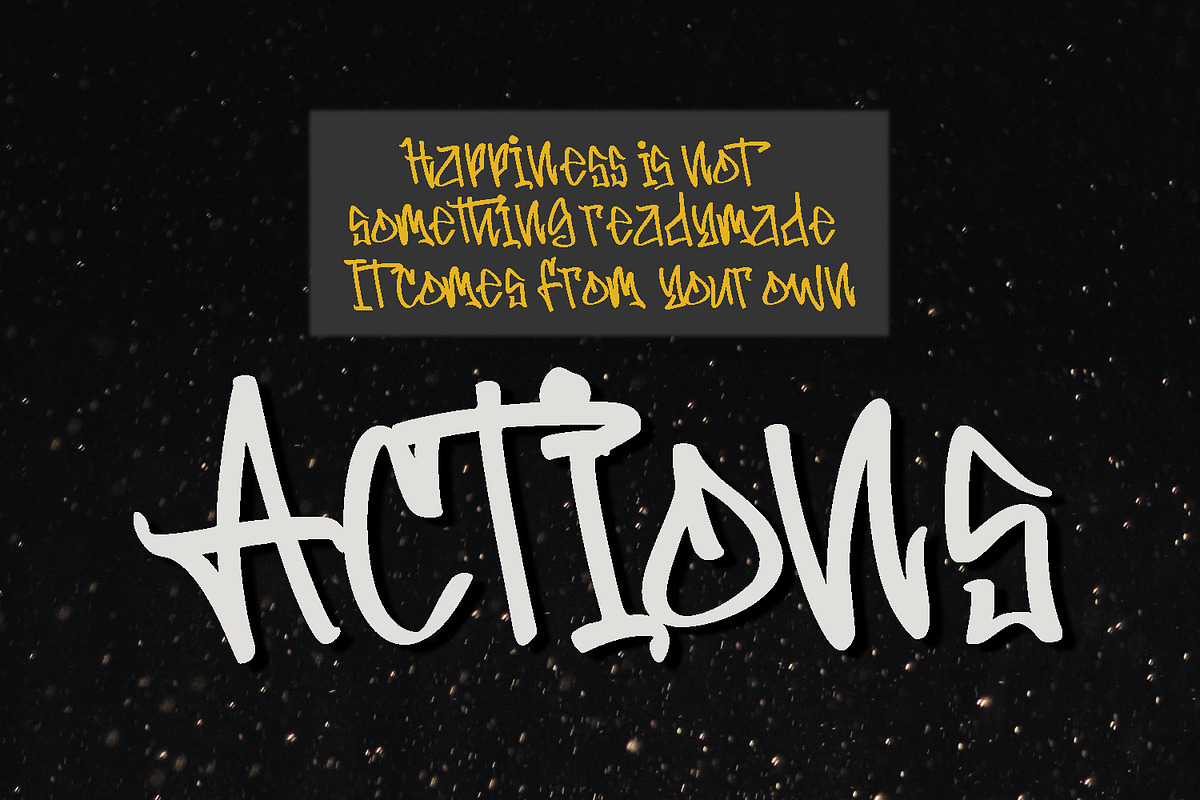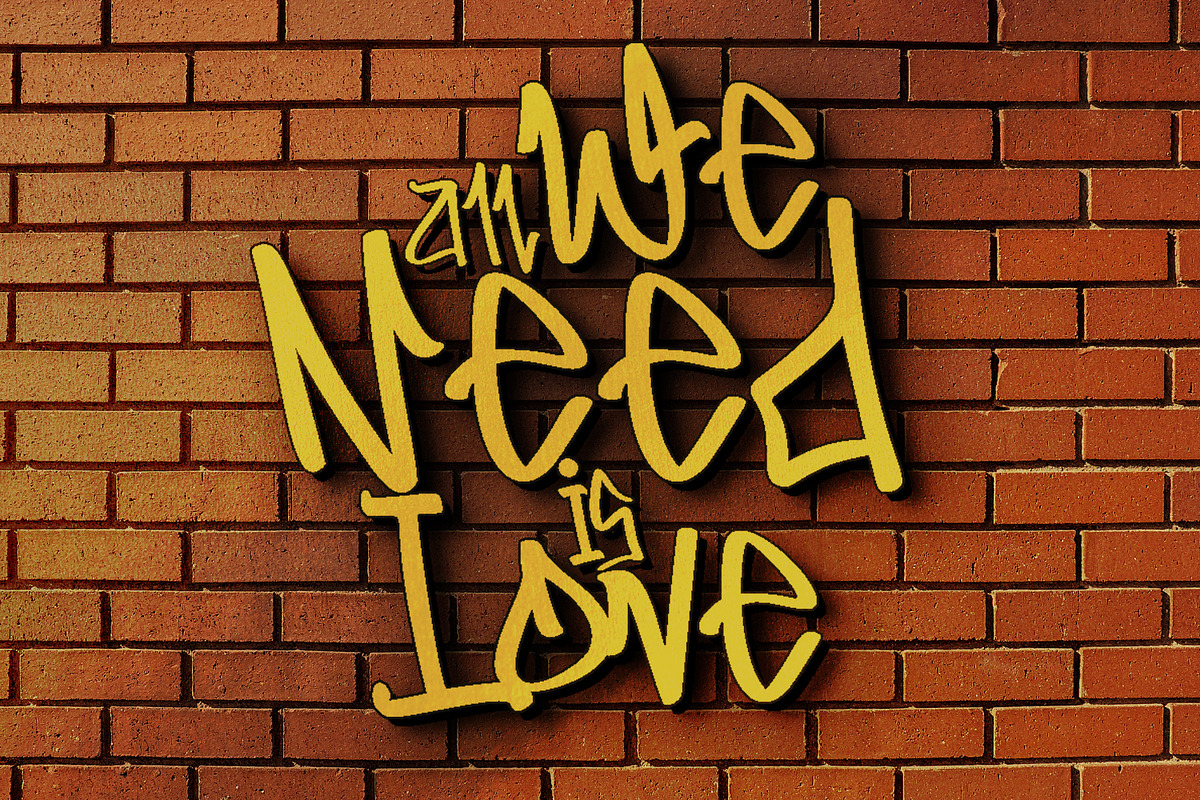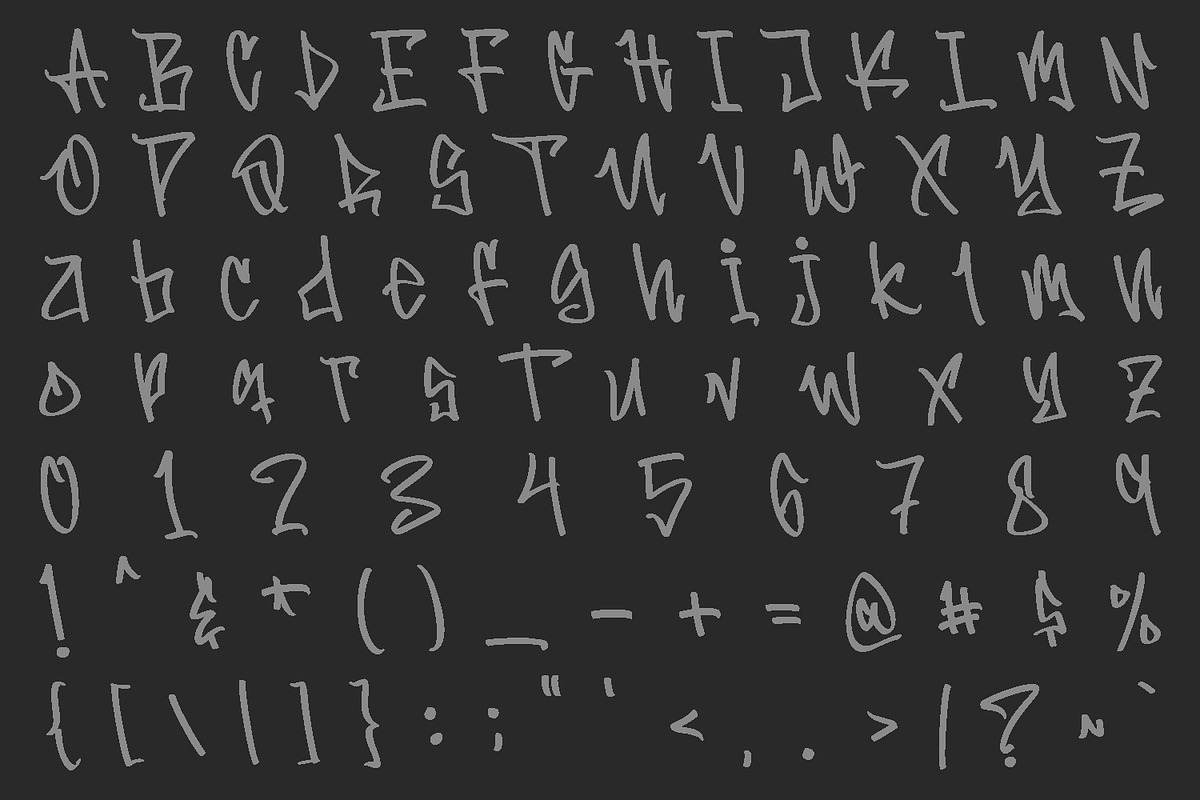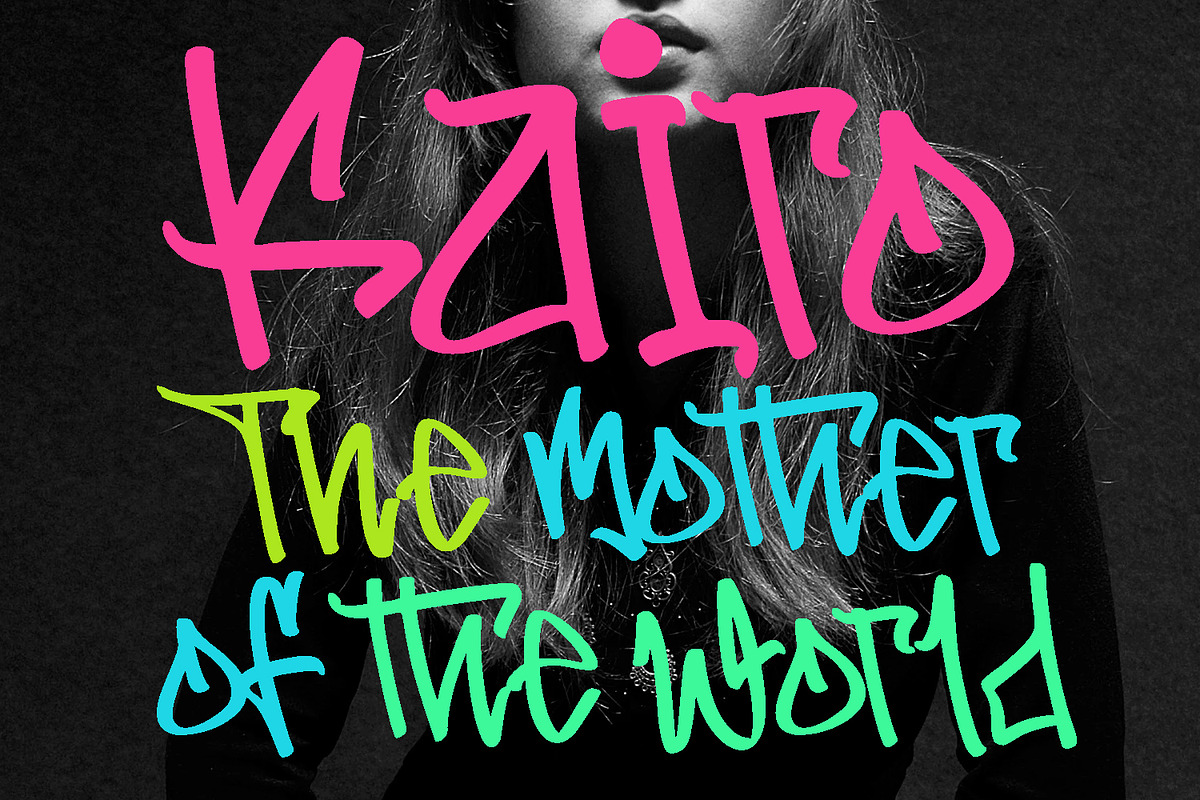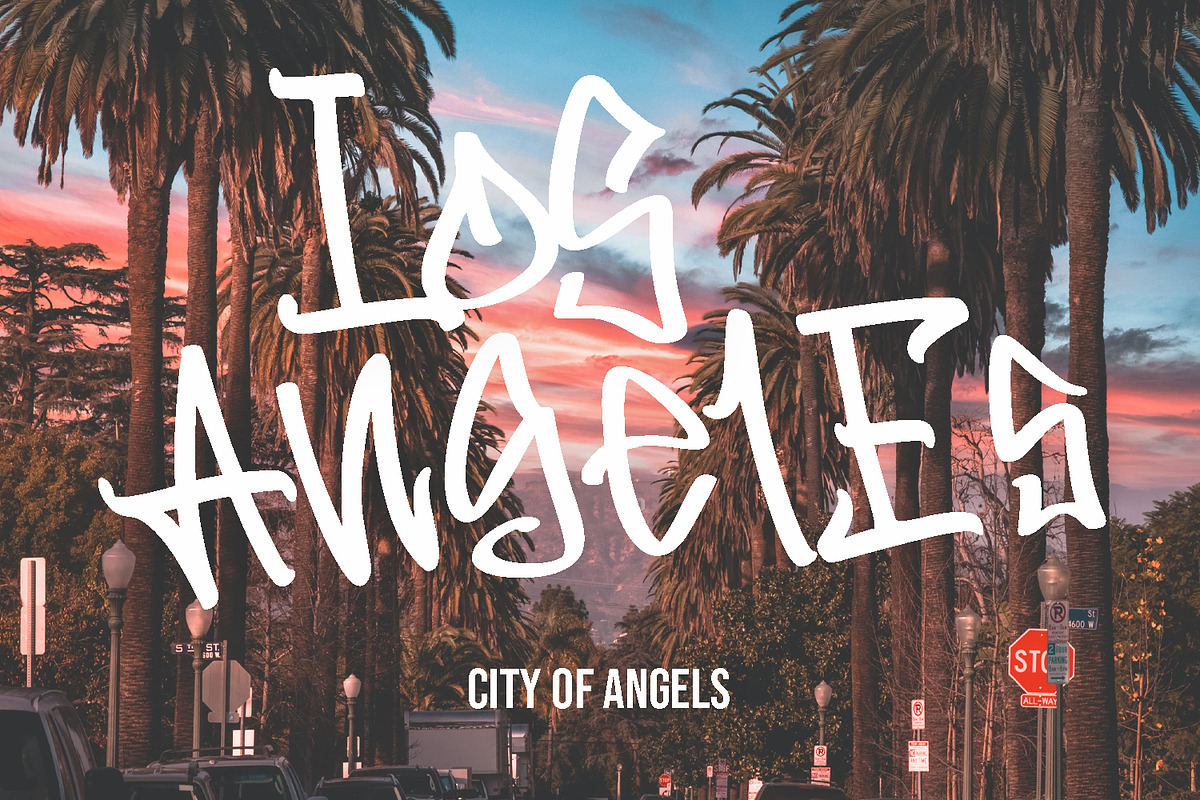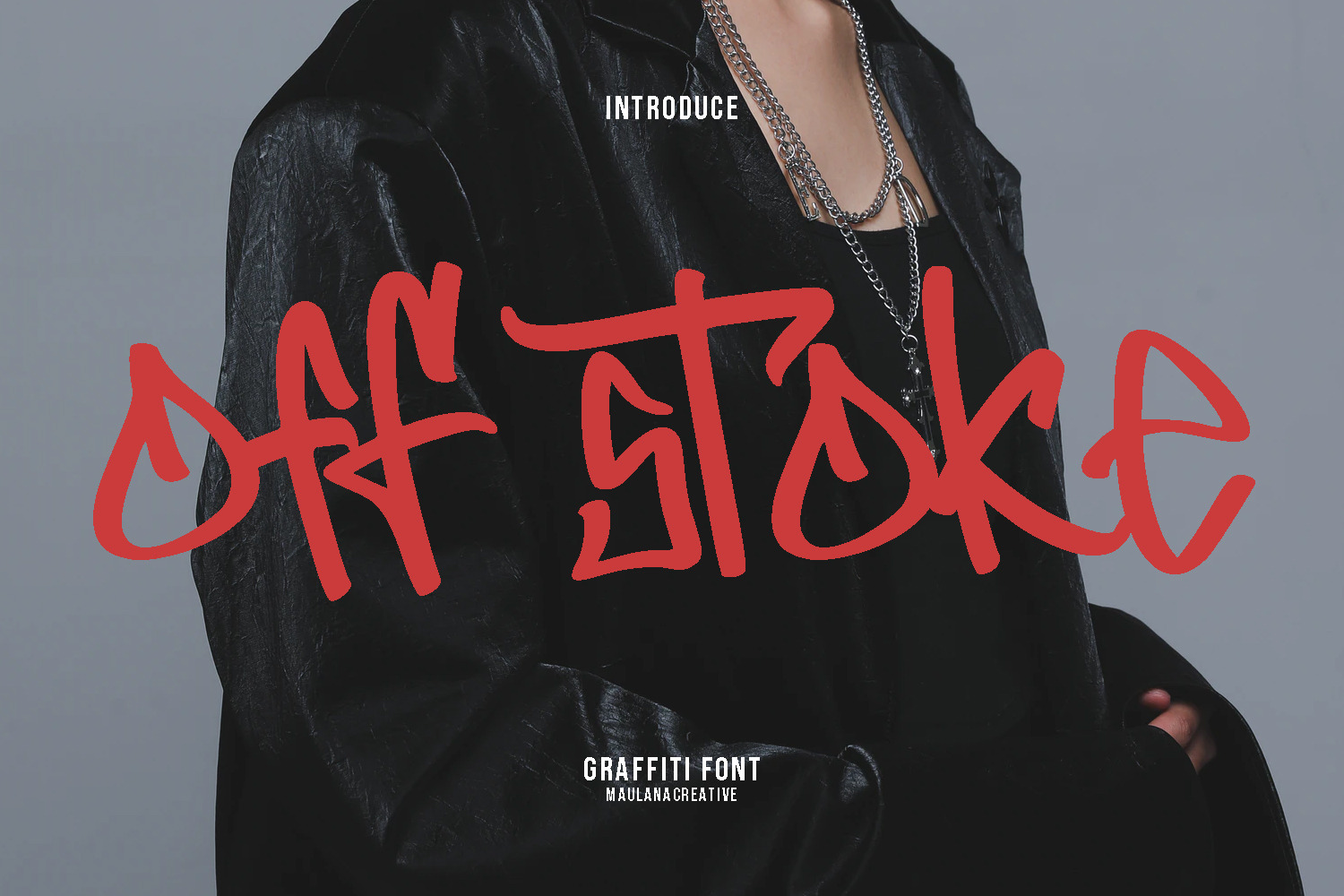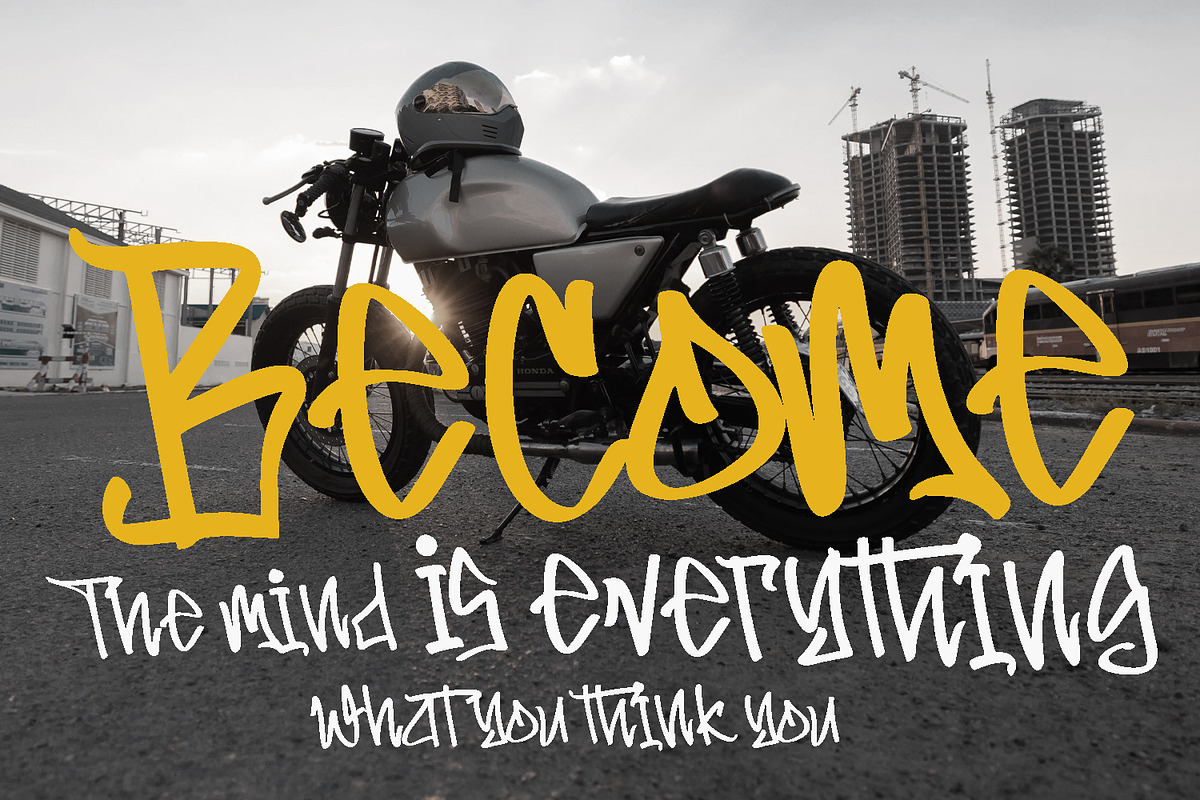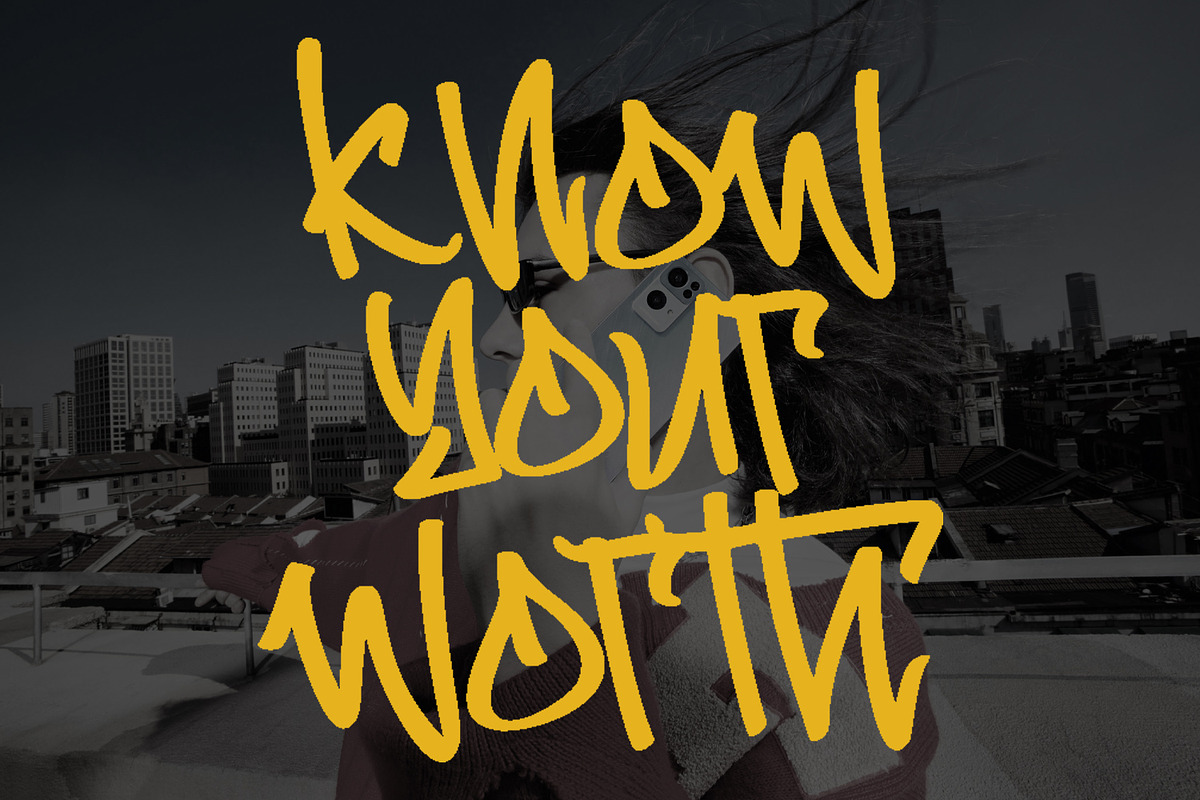
Offstoke Graffiti Font
Offsstoke is a fancy graffiti style font. With back slanted mono-line stroke, fun character with a bit of ligatures and alternates. To give you an extra creative work. Offsstoke font support multilingual more than 100+ language. This font is good for logo design, Social media, Movie Titles, Books Titles, a short text even a long text letter and good for your secondary text font with sans or serif. Make a stunning work with Offsstoke font.